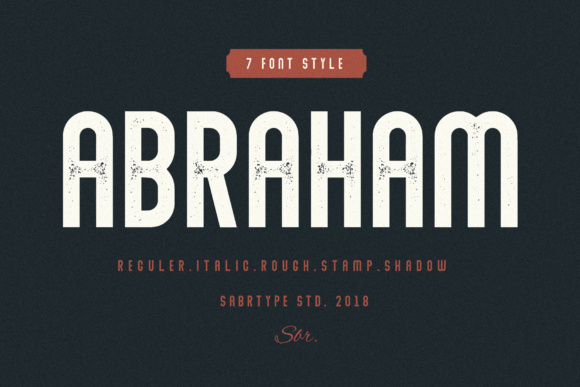
Unleash the stunning beauty of Abraham Family Font, a modern sans serif typeface that will transform your designs into captivating masterpieces. Experience the power of this font family, meticulously crafted by sabrcreative, and let your creativity soar to new heights.
Immerse yourself in a world of typographic artistry with Abraham Family Font. Its seven distinct weights, ranging from the delicate Hairline to the bold Black, offer endless possibilities for creating striking and memorable designs. Whether you're crafting elegant logos, eye-catching headlines, or informative web content, Abraham Family Font will elevate your work to new levels of sophistication.
With its clean lines, generous spacing, and modern appeal, Abraham Family Font exudes a sense of timeless elegance. Its sans serif design radiates clarity and simplicity, making it highly legible and versatile. Whether you're creating designs for print or digital platforms, Abraham Family Font ensures your message is conveyed with impact and clarity.
Experience the versatility of Abraham Family Font, a font family that effortlessly adapts to a wide range of design projects. Its clean and minimalist aesthetic blends seamlessly with various design styles, from classic to contemporary. Elevate your branding efforts with a logo that exudes professionalism and sophistication. Create stunning posters, flyers, and brochures that capture attention and leave a lasting impression. Elevate your web design with elegant typography that enhances user experience and readability.
Step into the realm of creative expression with Abraham Family Font. Its diverse range of weights empowers you to create stunning typographic hierarchies that guide readers through your content. Create eye-catching headlines that demand attention, subheadings that provide context, and body text that effortlessly guides readers through your narrative. Unleash your creativity and craft designs that resonate with your audience.
With Abraham Family Font, every design becomes a testament to your impeccable taste and design prowess. Its modern sans serif style emanates a sense of innovation and progress, making it the perfect choice for forward-thinking businesses and individuals. Embrace the power of Abraham Family Font and unlock the full potential of your creative vision.